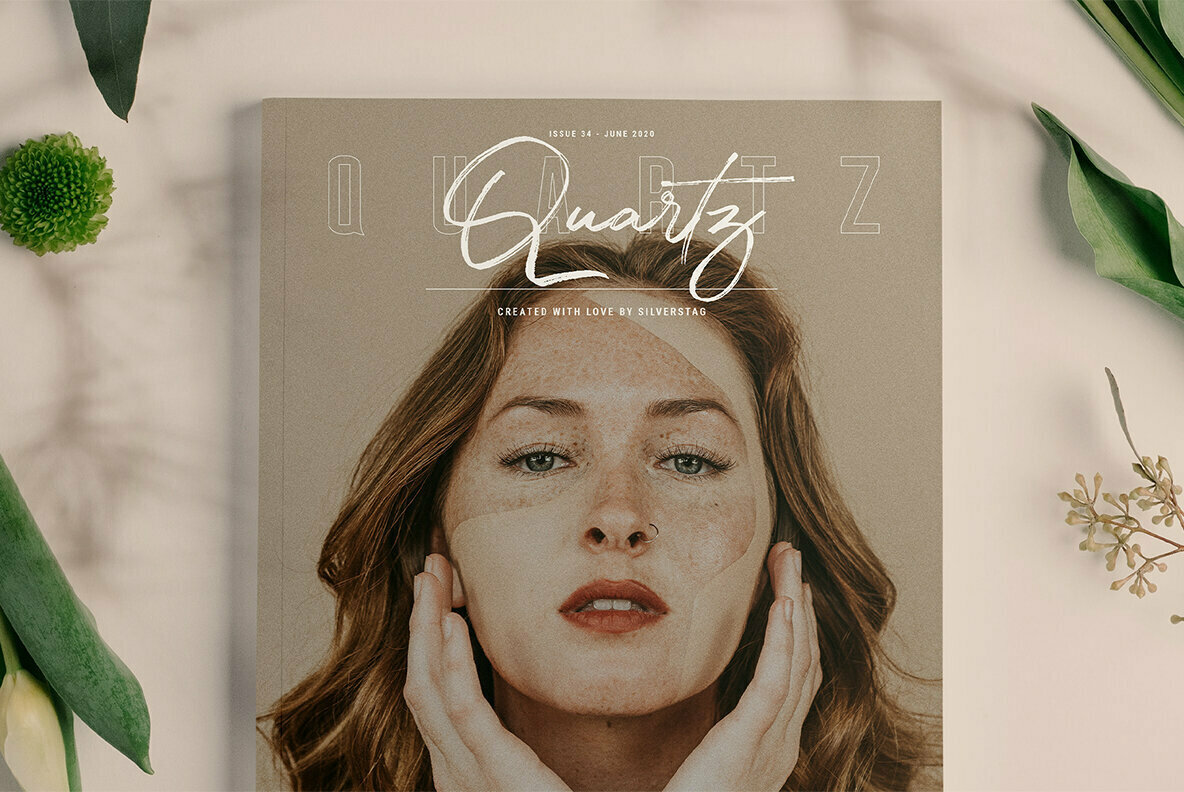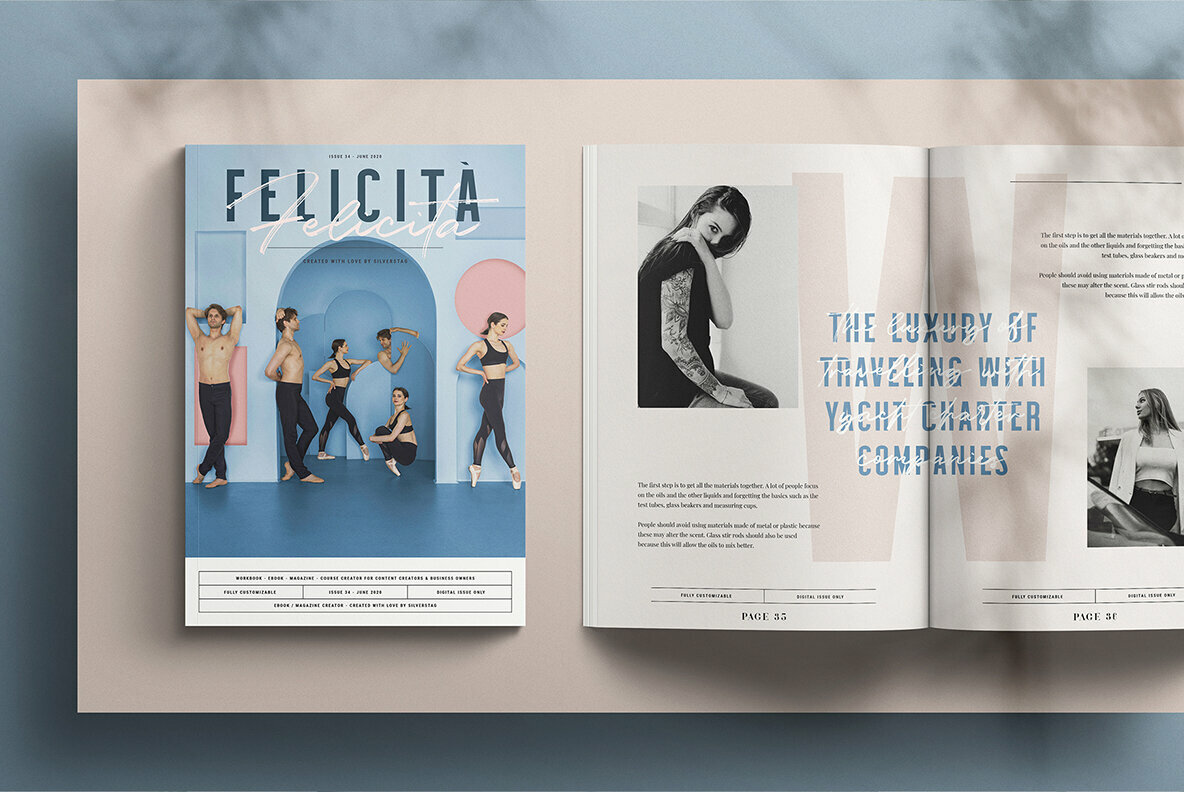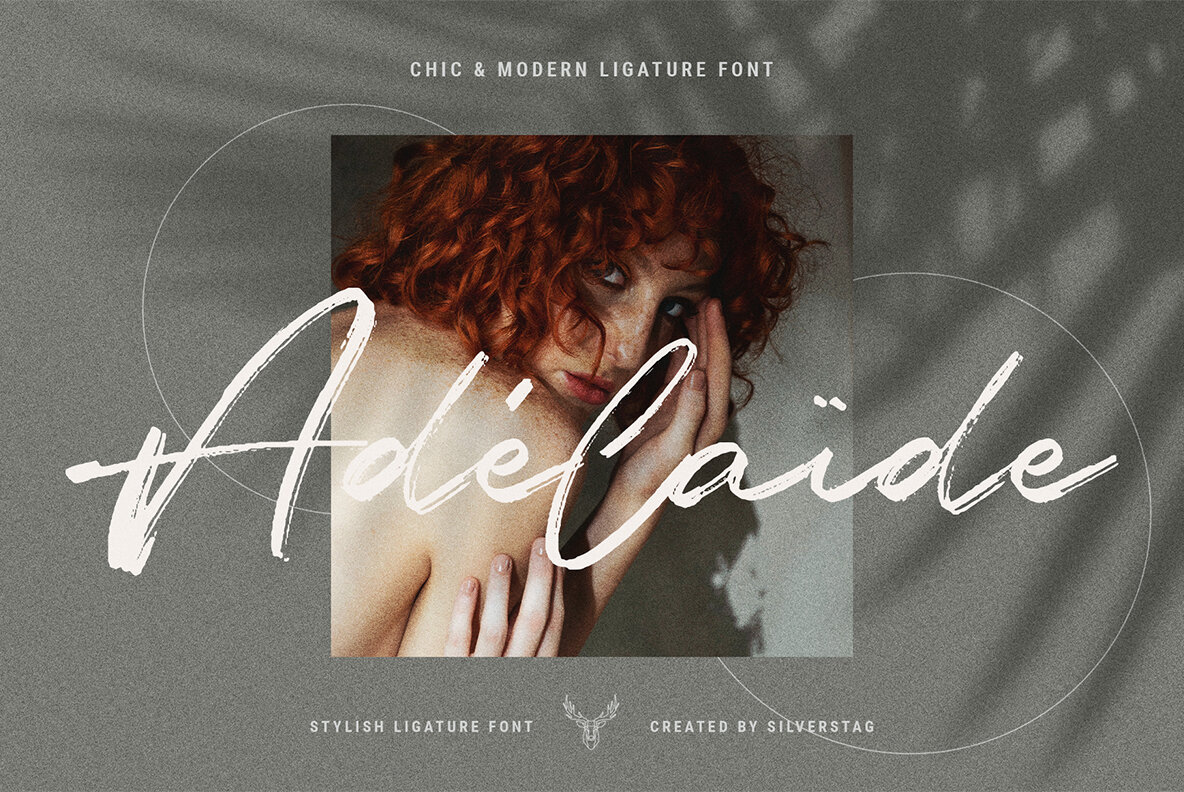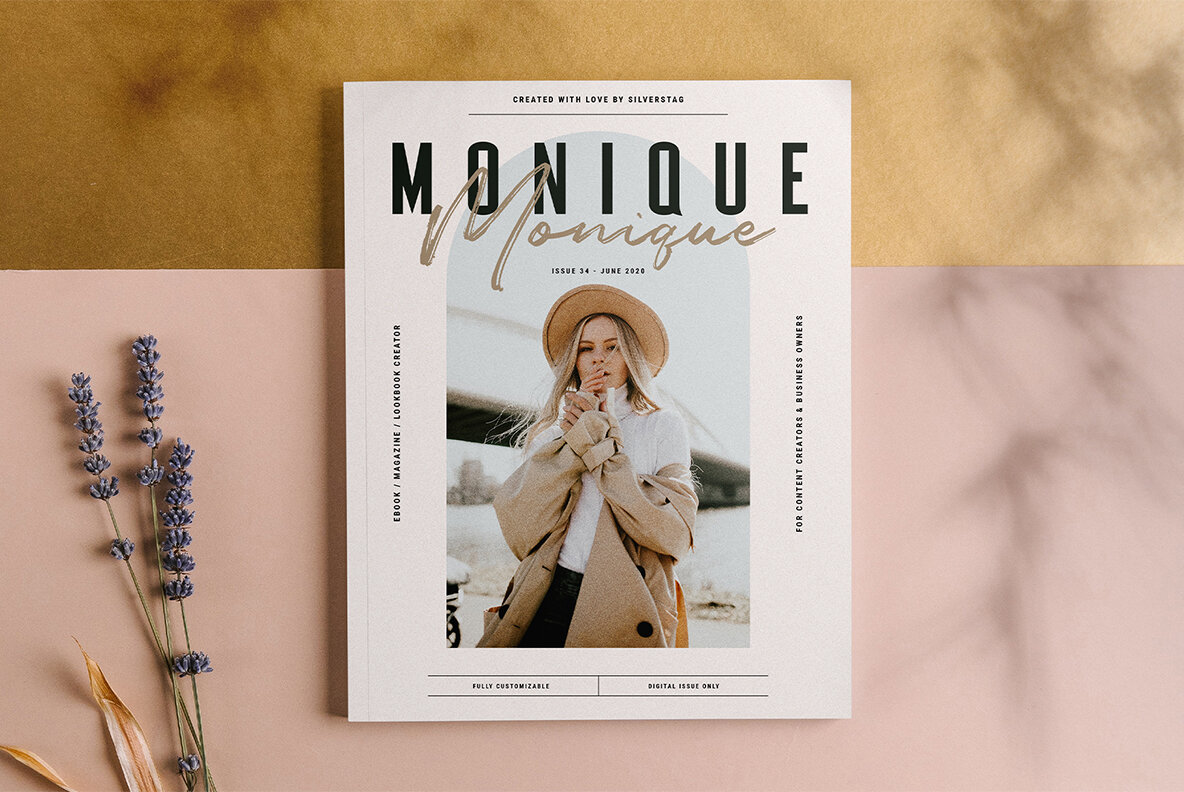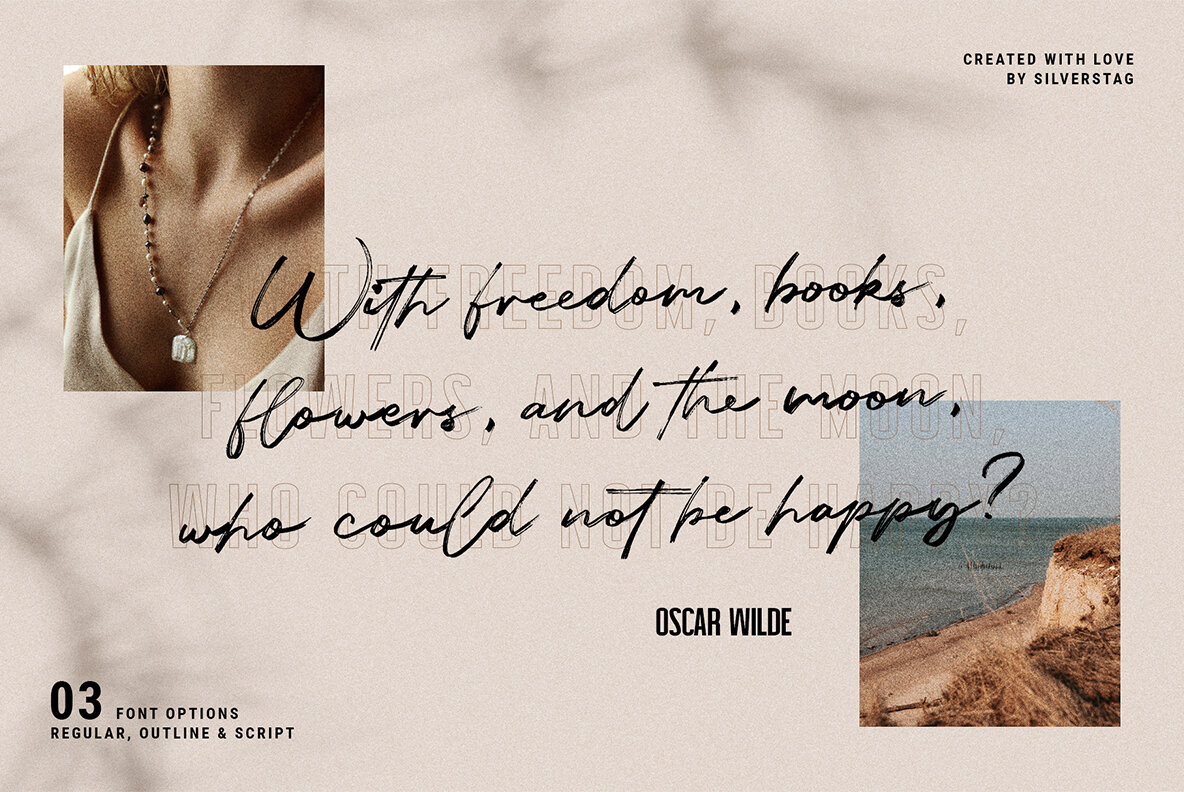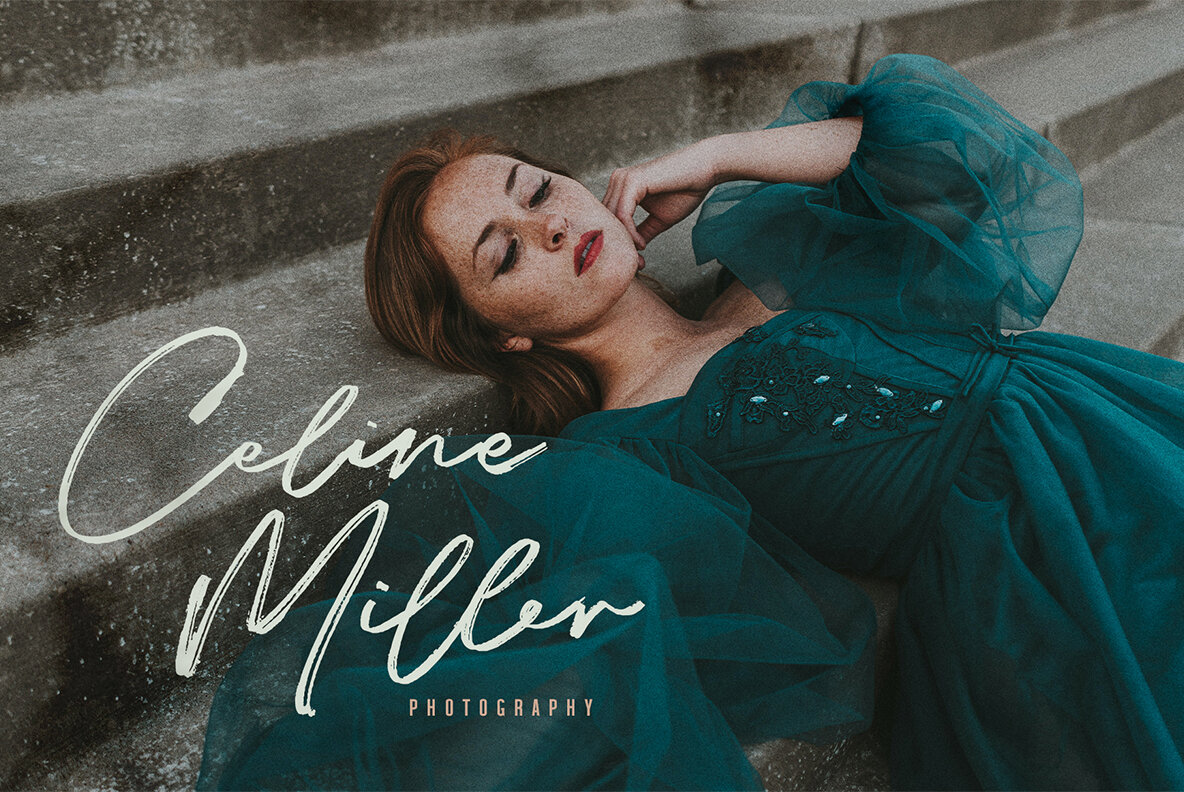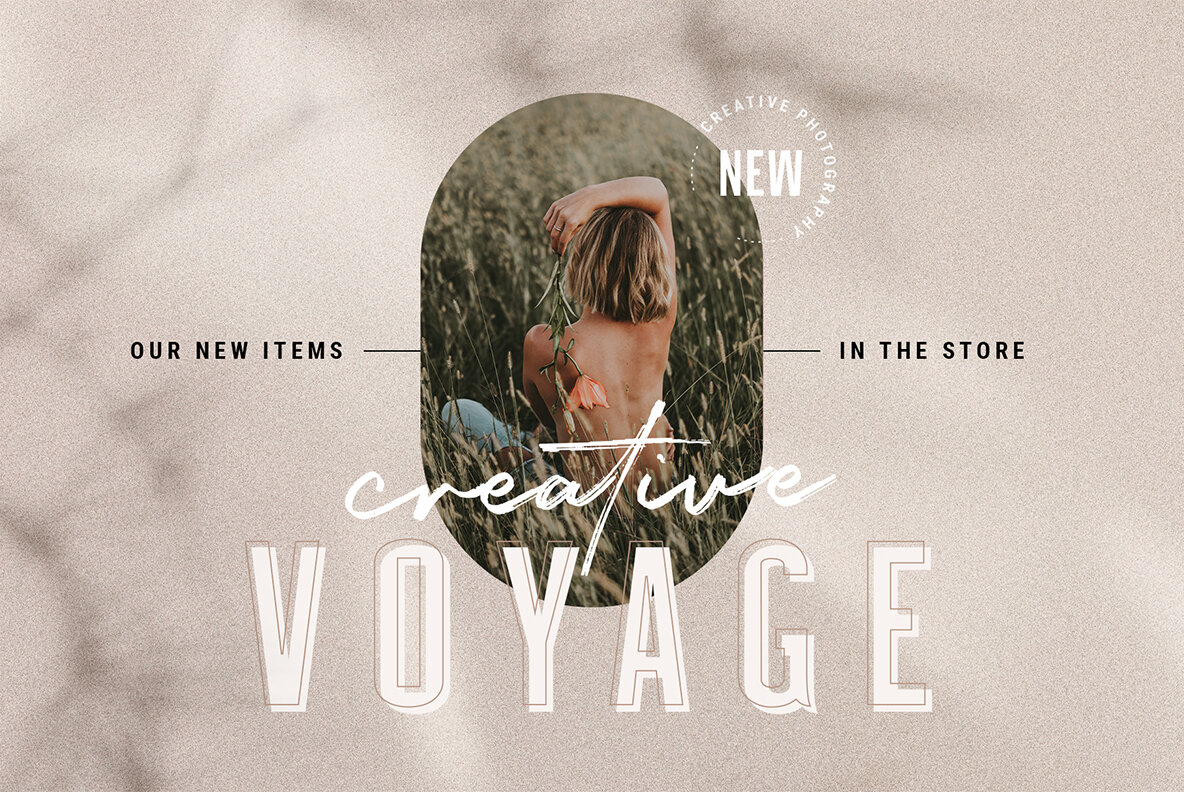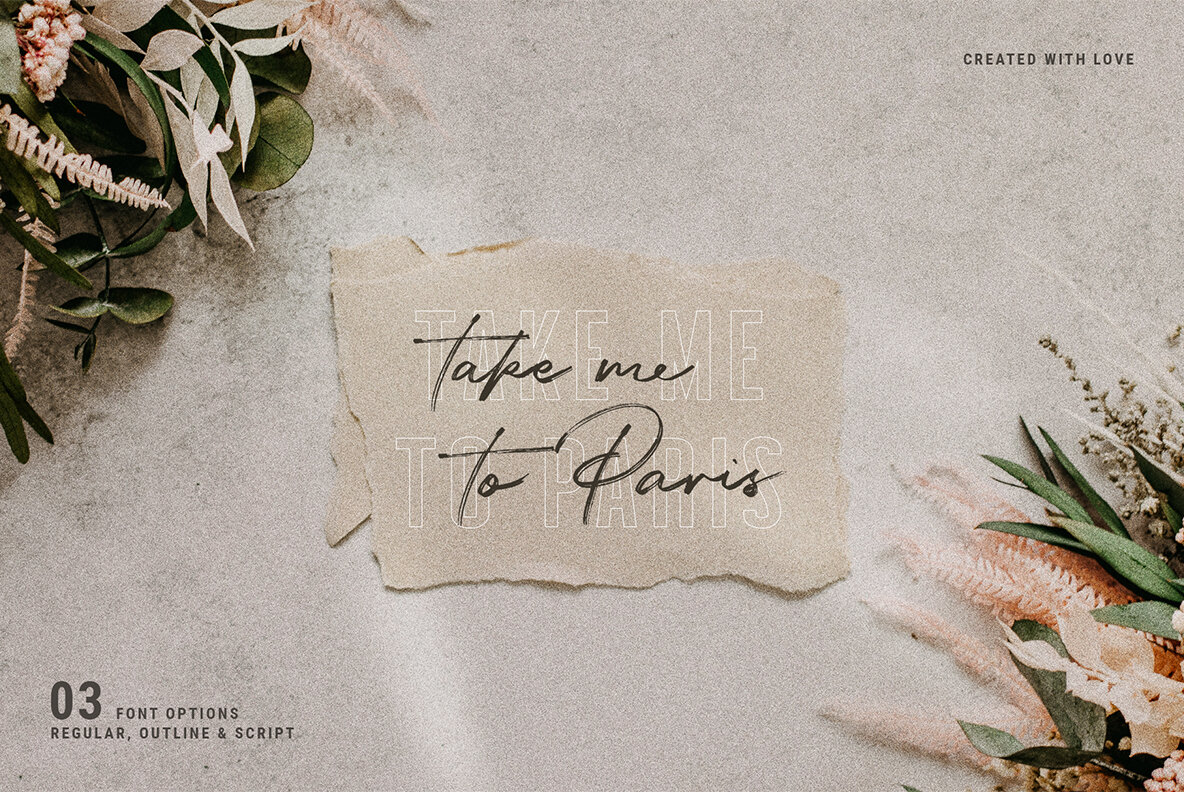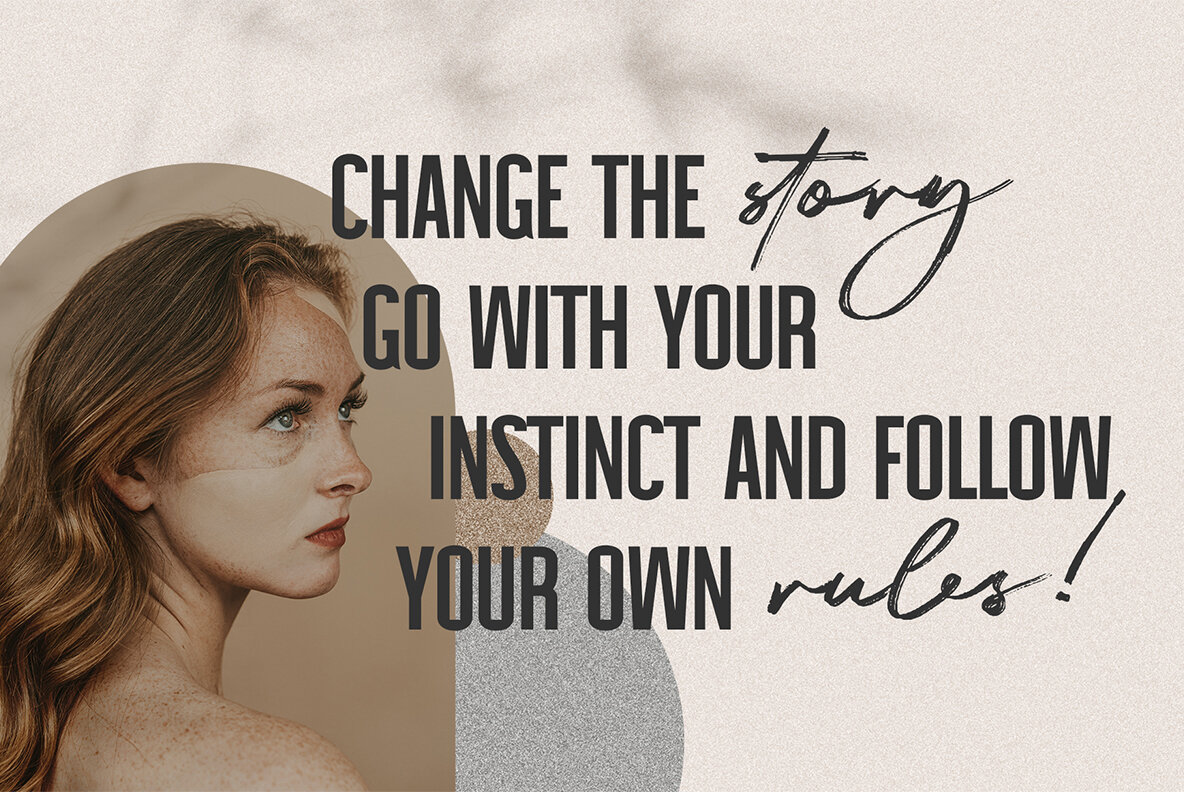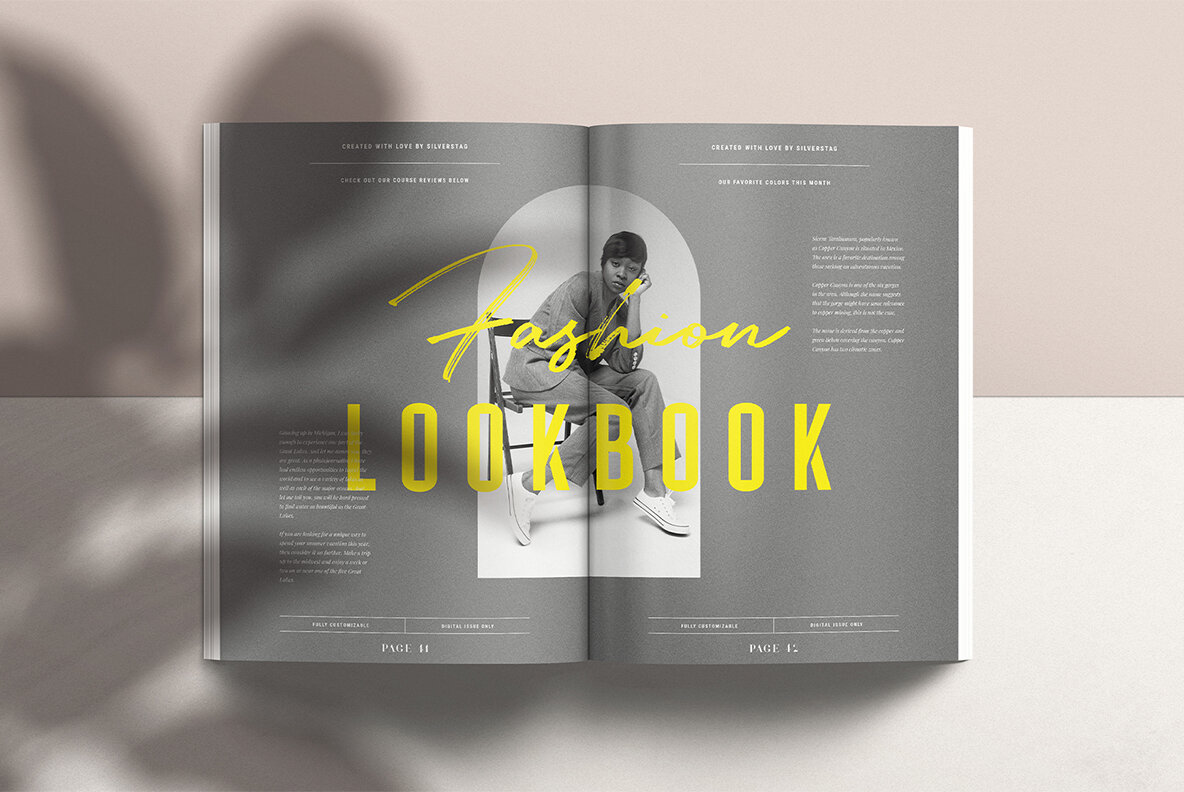
Dreaming Of Spring Font
Dreaming Of Spring Regular
Dreaming Of Spring Outline
Dreaming Of Spring Script
Already dreaming of spring? If you're like me you do like winter, but just for a couple of days. Snow? A day or two max! Cloudy weather? No, not really. If it wasn't for the holidays, I think winter would be a complete waste of our time. So, I am dreaming of spring and that is why my new font duo is called just like that!
A creative hand-drawn brush script comes with over 250 ligatures and alternate letters and it comes paired with an elegant and simple sans font that comes in two variants, regular and outlined. The sans & script combination will make all your projects look fresh and unique!